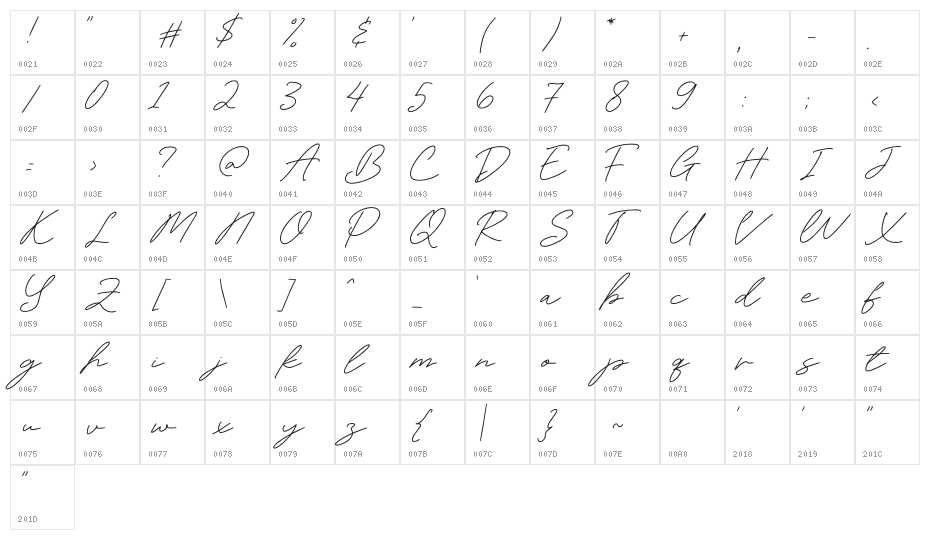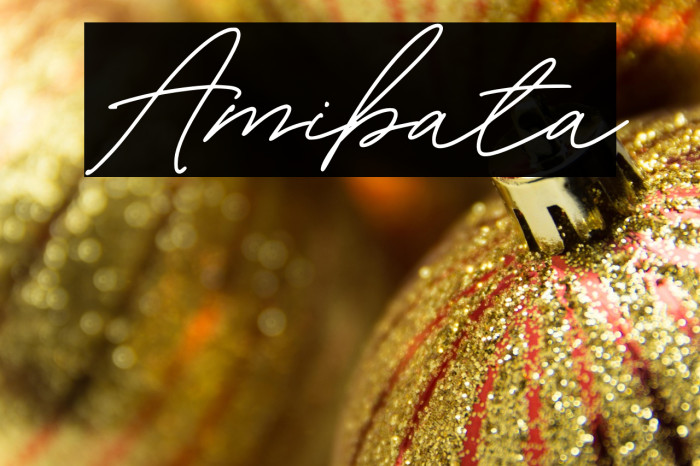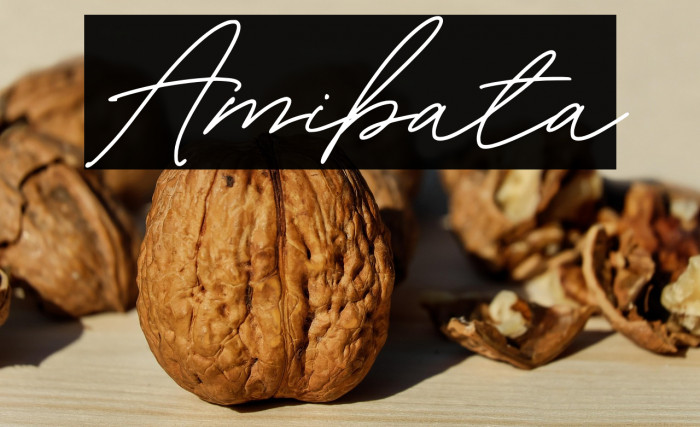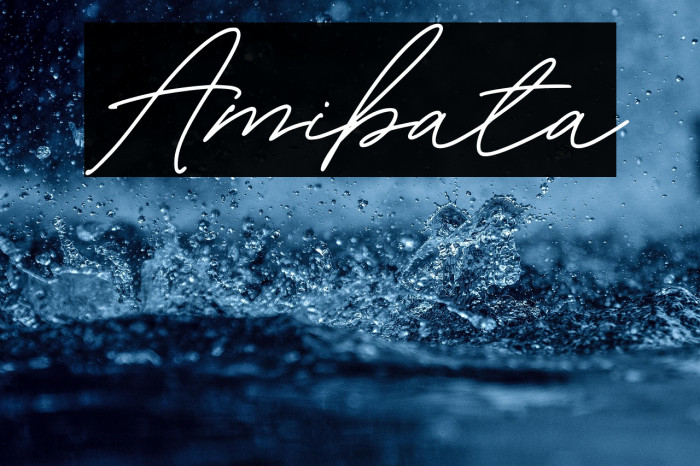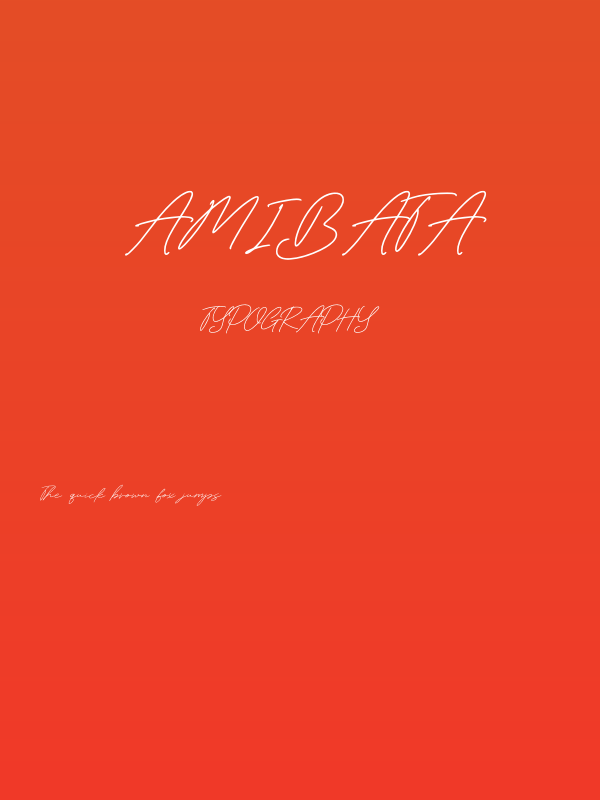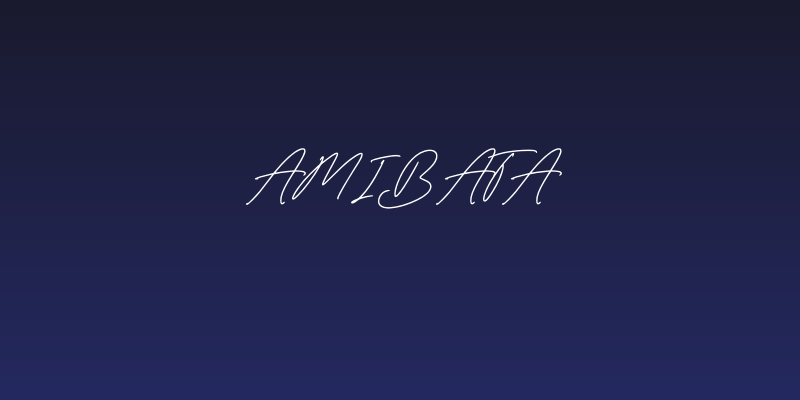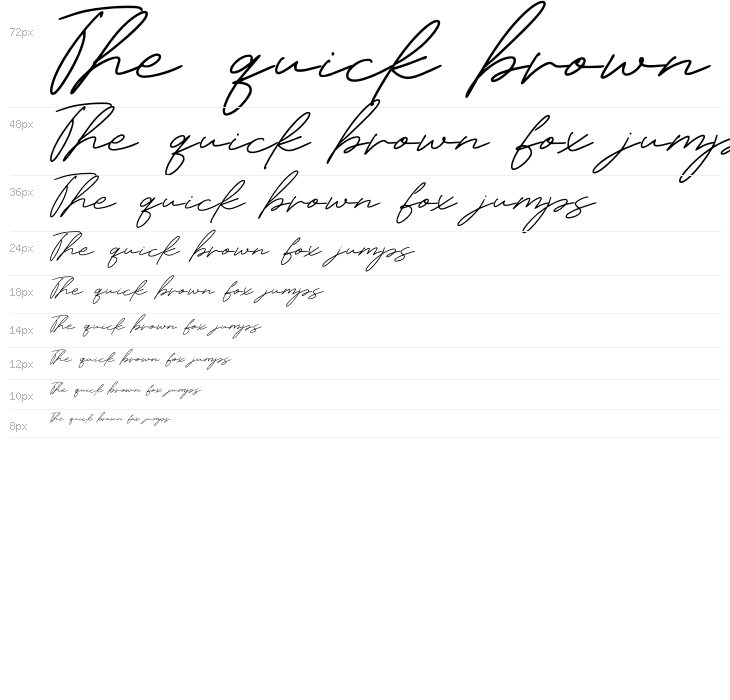
Amibata Font
Amibata Description
A flowing, elegant script font with a handwritten style, featuring smooth, connected strokes and a natural, cursive appearance.
| Proposed Projects | Invitations, greeting cards, personal branding. |